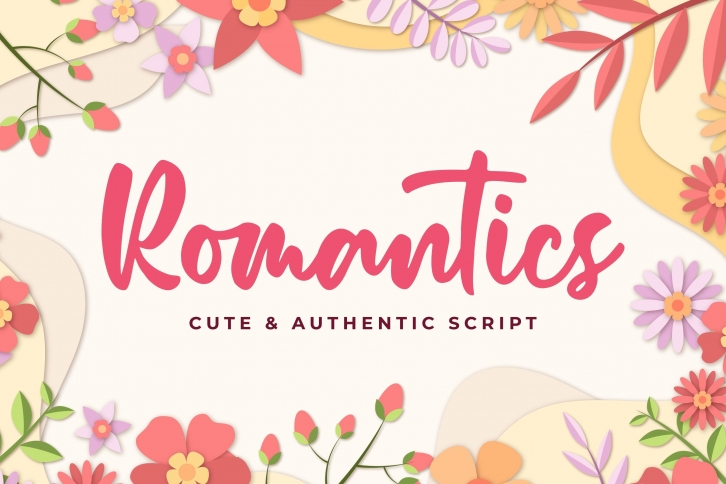
Romantics is a beautiful font that was designed by Almarkha Type. It's a great choice for designers and creatives who need such a font. It was released on July 3, 2020 and the file size is 16.72 MB. Romantics may give a more youthful, expressive and casual look to your project. It is a very beautiful, refined, elegant, and high-quality font.